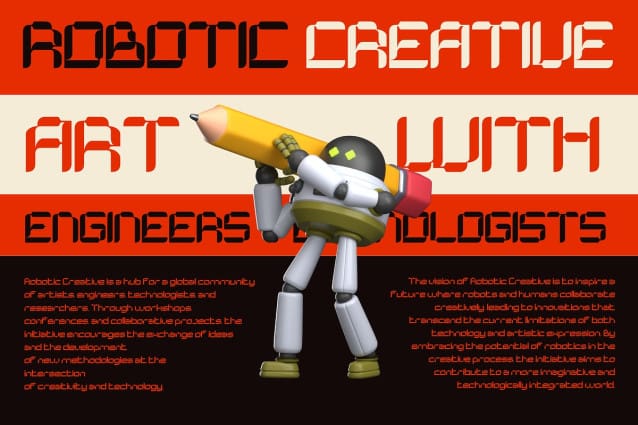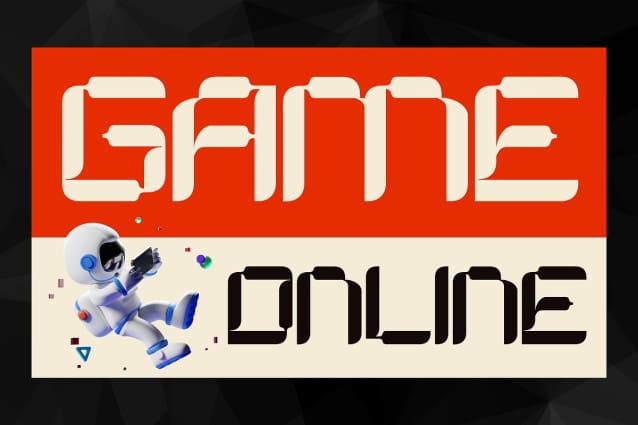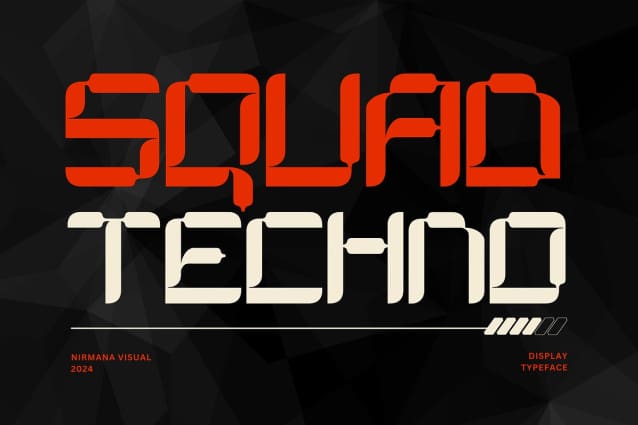
Squad Techno Font
Squad Techno Font offers beautiful typographic harmony for a diversity of design projects, including logos & branding, social media posts, advertisements & product designs.